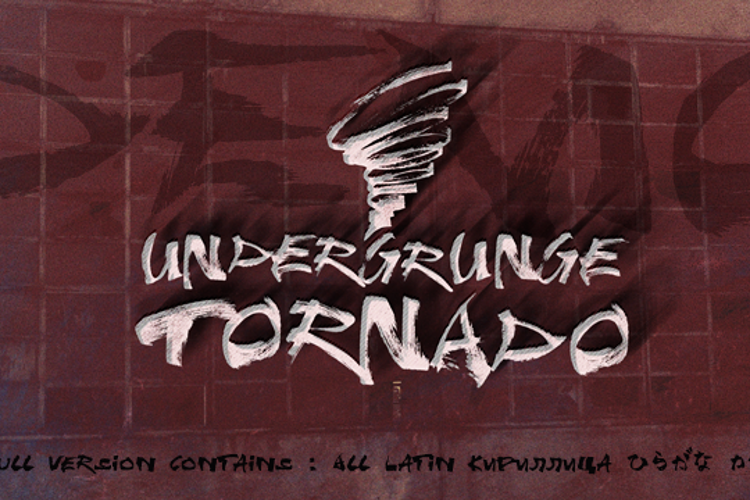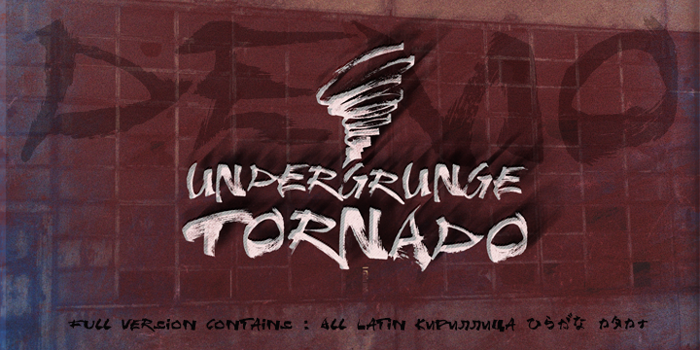
Undergrunge Tornado Demo Font
UNDERGRUNGE TORNADO DEMO is a demo version of a grungy style hand drawn poster marker font. It contains Latin A-Z and Japanese Hiragana. For personal use only.
Full version contains all Latin language extensions , Cyrillic and Katakana.